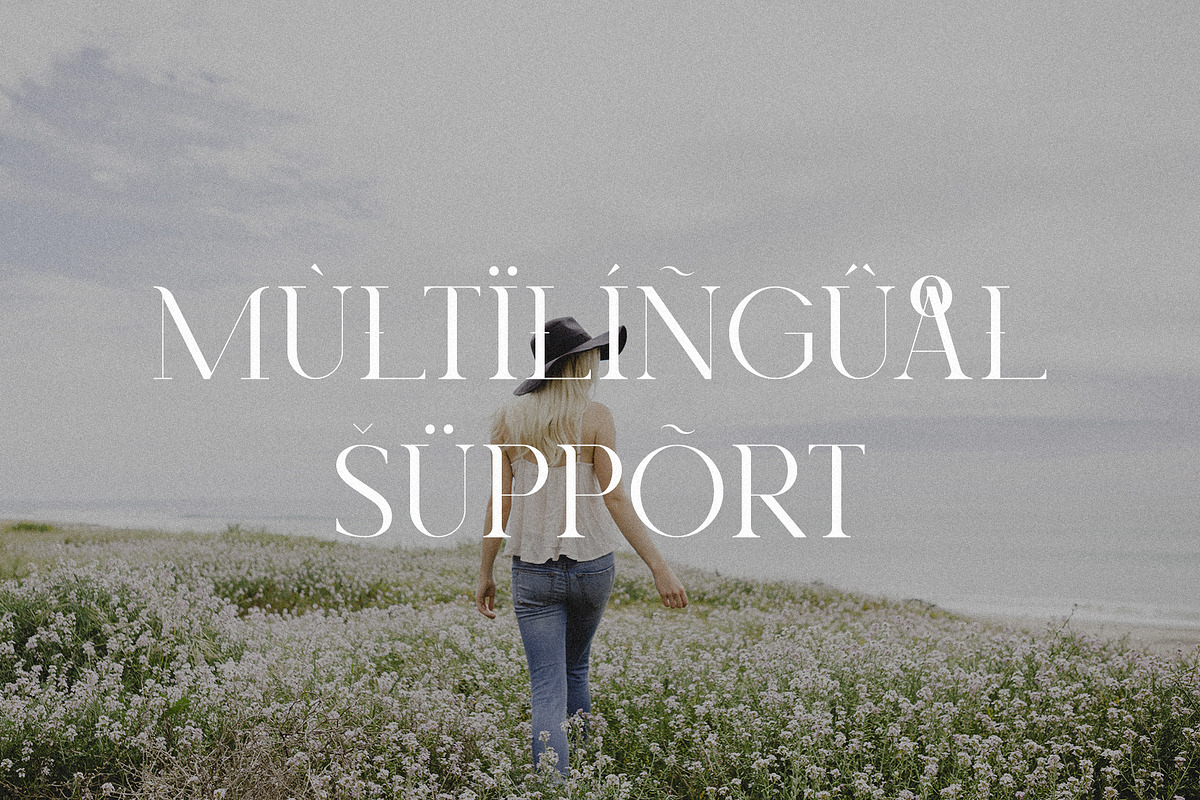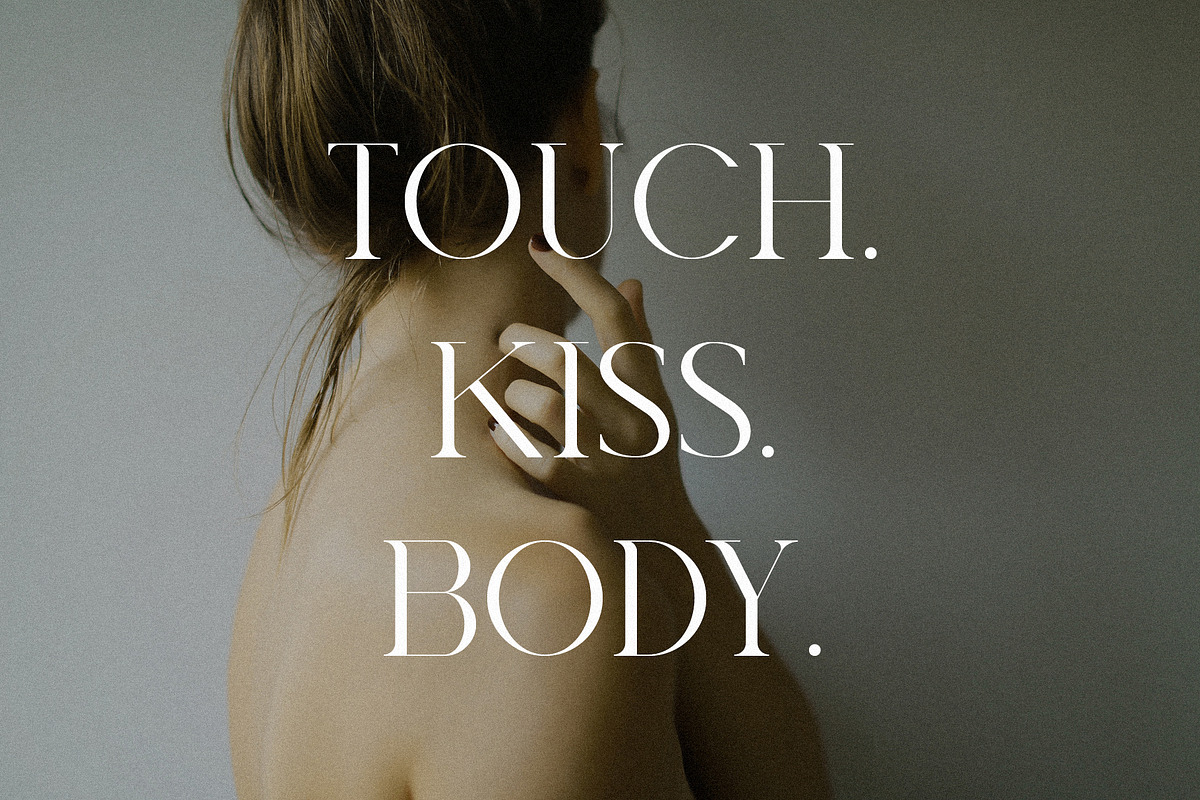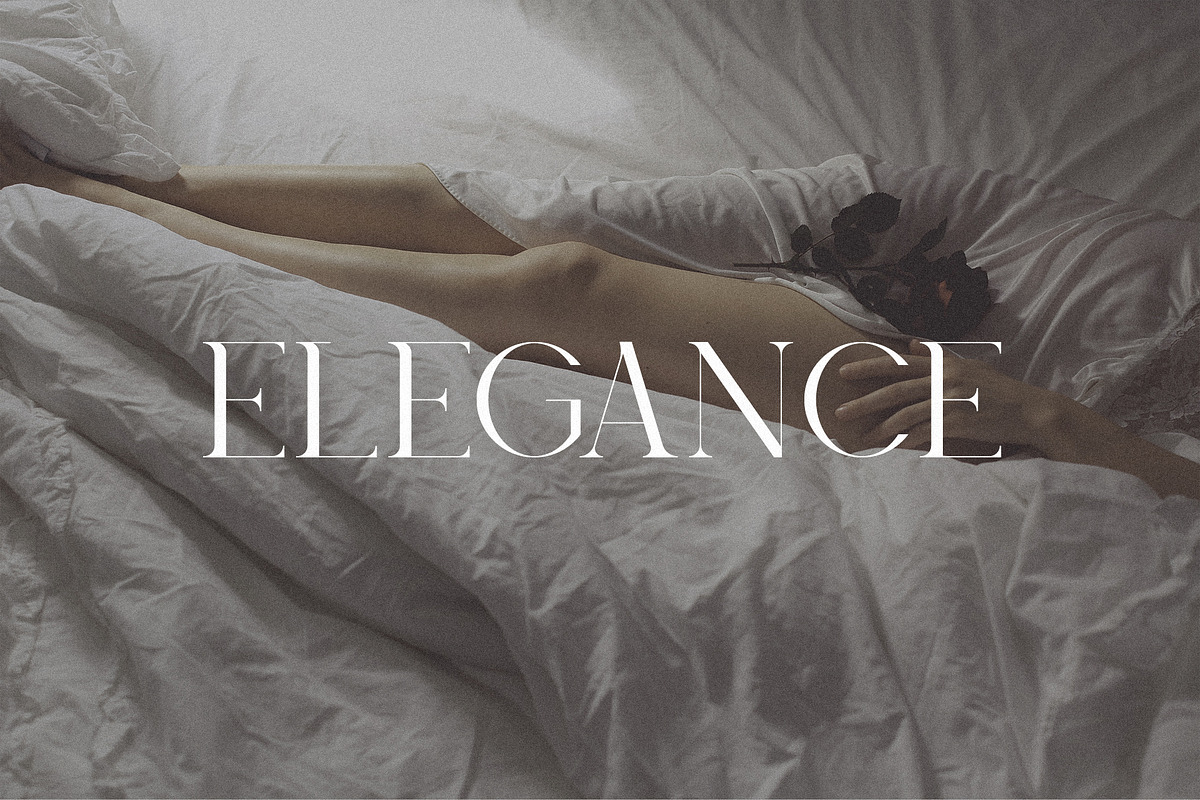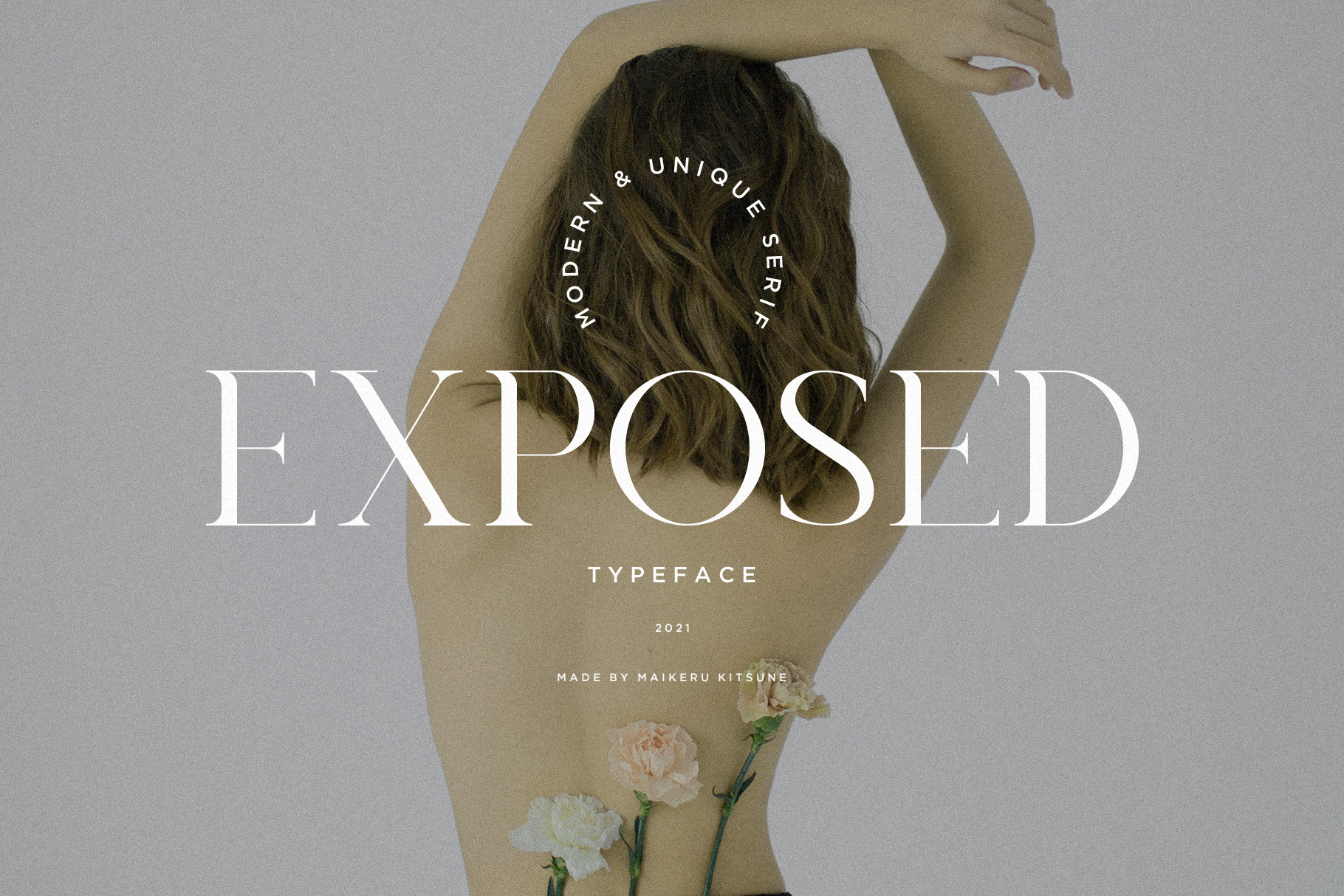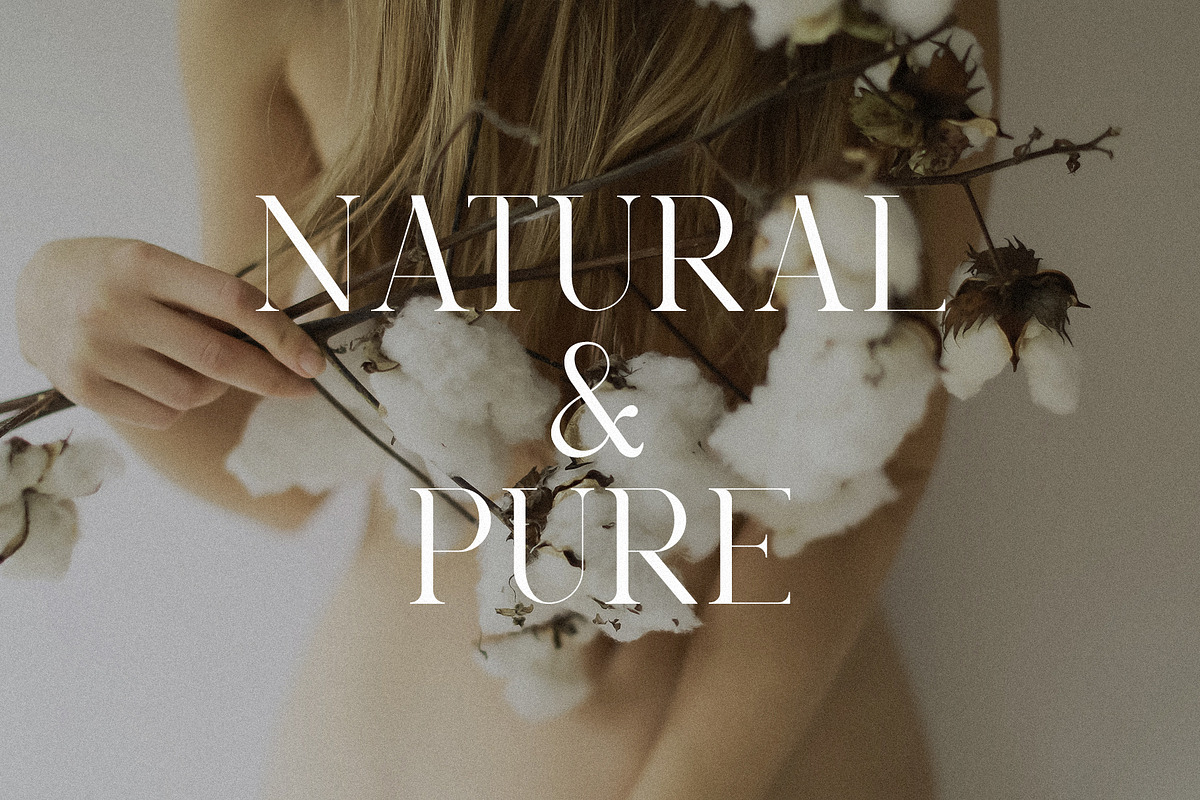
Exposed - Modern & Unique Typeface
Exposed is a modern & unique serif. Exposed is great for invitations, website & magazine headers, logos, typography, branding, etc. Also Exposed can be paired with sans serifs.